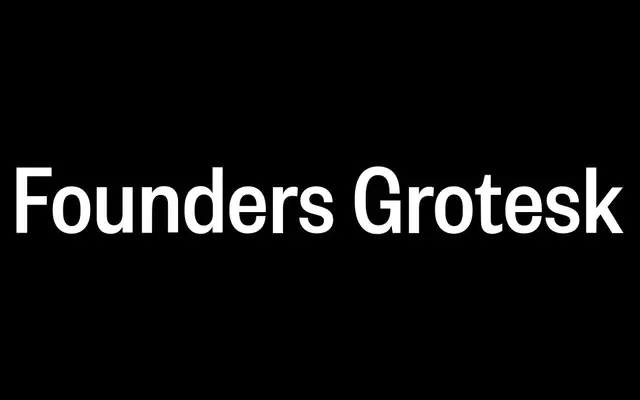
Founders Grotesk Condensed
Klim Type Foundry · Kris Sowersby · 2011
A condensed grotesque drawn from Miller & Richard, Caslon Doric and Helvetica headline cuts, built for tight headlines and posters.
The condensed cut of Founders Grotesk, by Kris Sowersby, pulling rudimentary geometry and serpentine curves from Miller & Richard's early 20th century Grotesque series, further details from H. W. Caslon's Doric series, and tight spacing strategies from Helvetica's Halbfett headline-sized metal cuts of the late 1950s. Five weights from Light to Bold give posters, mastheads and packaging a confident, editorial-feeling condensed sans without the rigidity of a strict revival. Sits within the wider Founders Grotesk system alongside the standard, Text, X-Condensed and Mono cuts.
Klim classifies it as Modern: Lineal/Grotesque; the condensed cut of Founders Grotesk, an amalgamation of Miller & Richard's early 20th century Grotesque series, H. W. Caslon's Doric and Helvetica's Halbfett headline cuts.